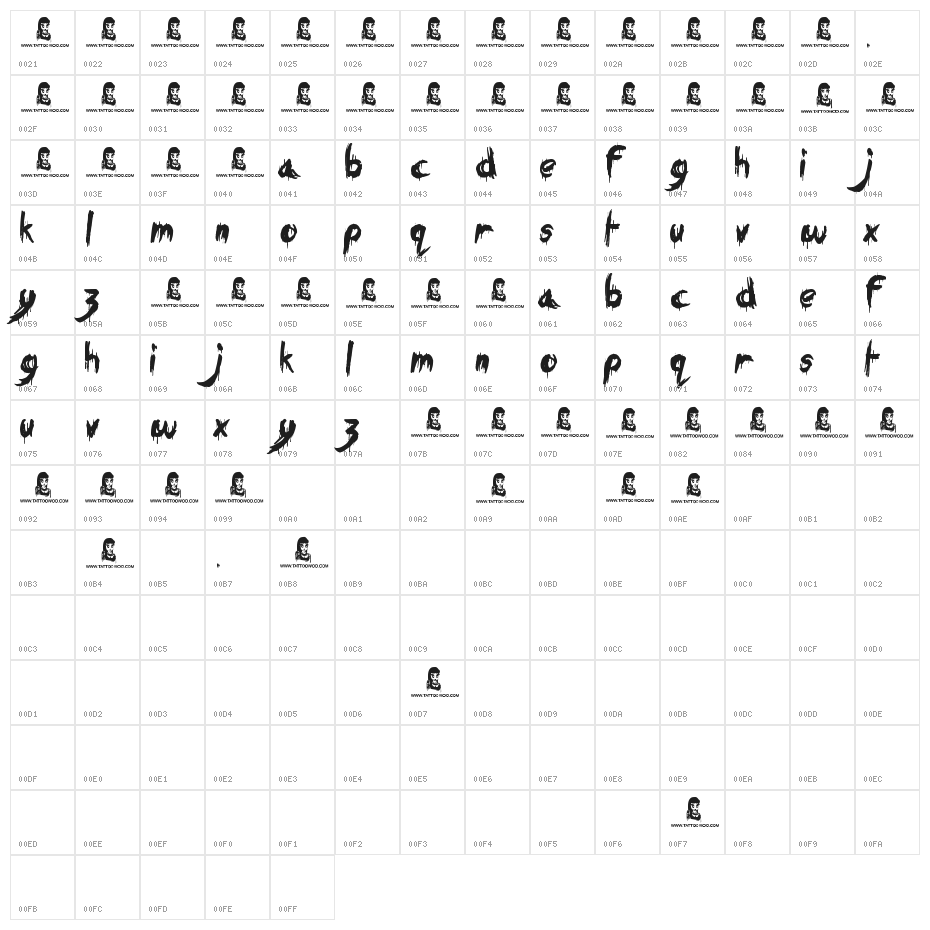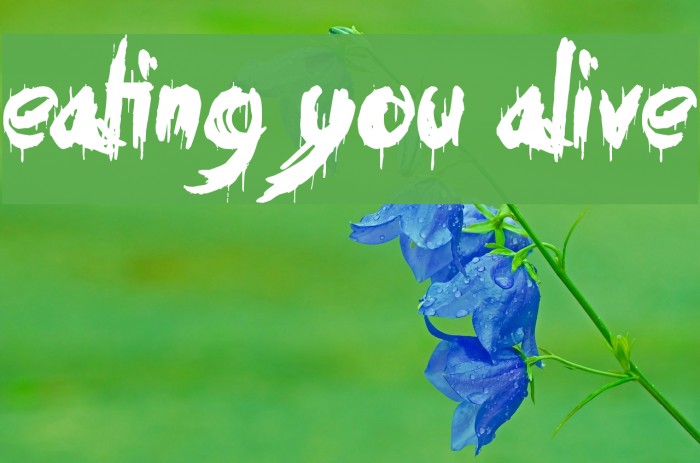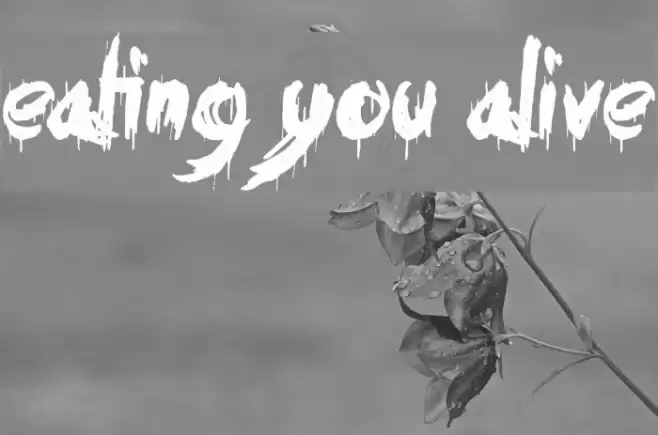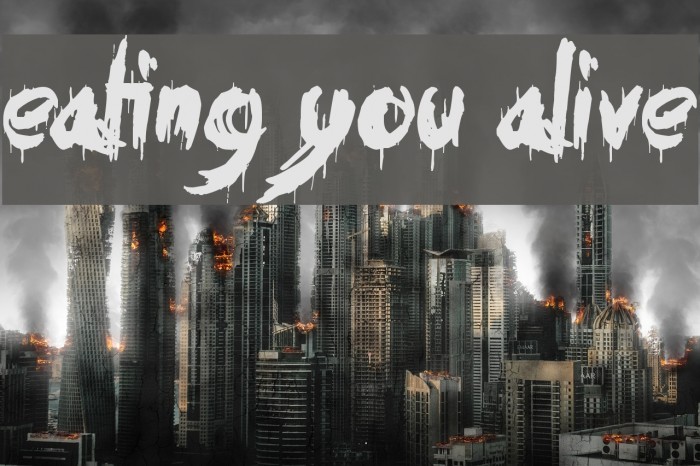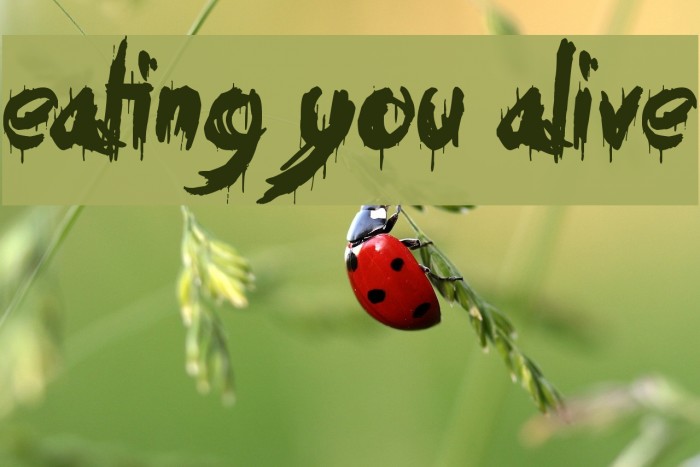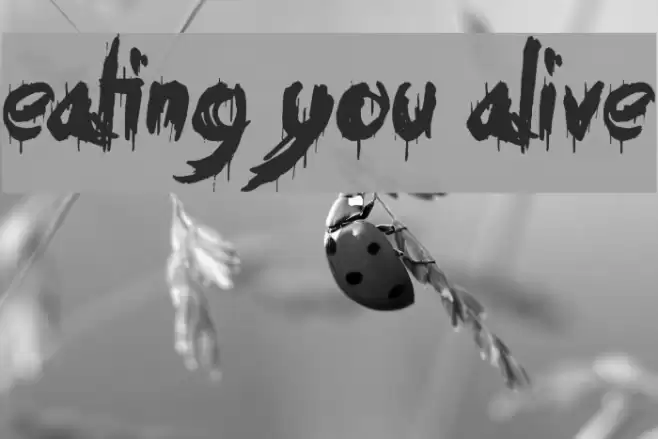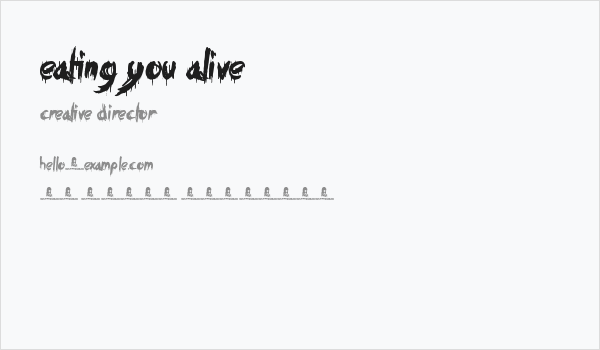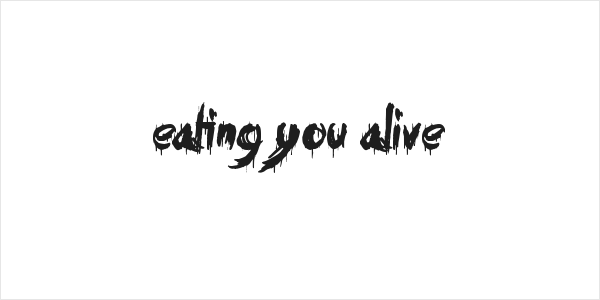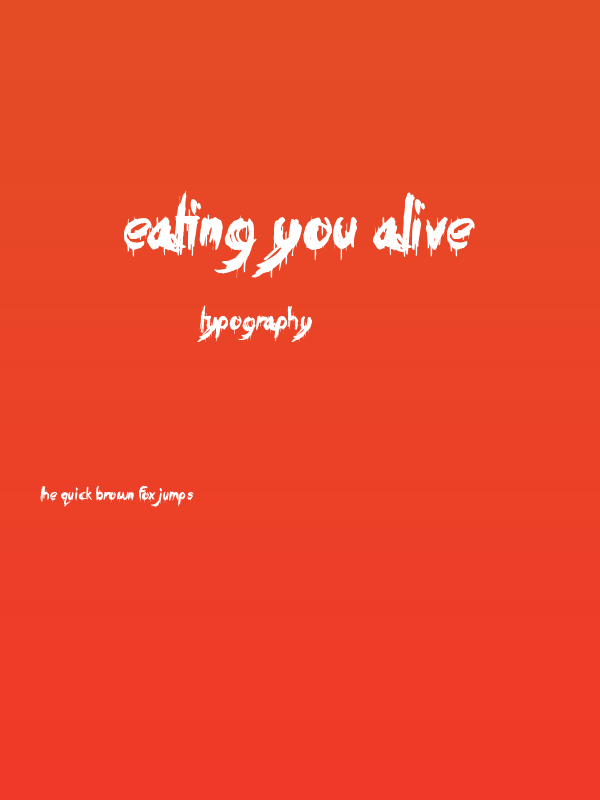
Eating You Alive Font
Eating You Alive Description
This font exhibits a bold, grungy style with a dripping effect that gives it a raw, edgy appearance. The characters are irregular and uneven, resembling hand-painted letters with ink or paint dripping down. This creates a sense of movement and chaos, making it ideal for designs that require a dramatic and intense look. The font's unique style is reminiscent of horror or punk themes, with a rebellious and unconventional flair. The strokes are thick and heavy, contributing to its bold presence, while the dripping elements add a touch of unpredictability and artistic flair.
| Overall Style | Grunge, Edgy, Artistic |
| Use Case | Headlines, Posters, Album Covers |
| Proposed Projects | Ideal for horror-themed posters, album covers, rebellious fashion branding, or any project needing a dramatic and edgy aesthetic. |